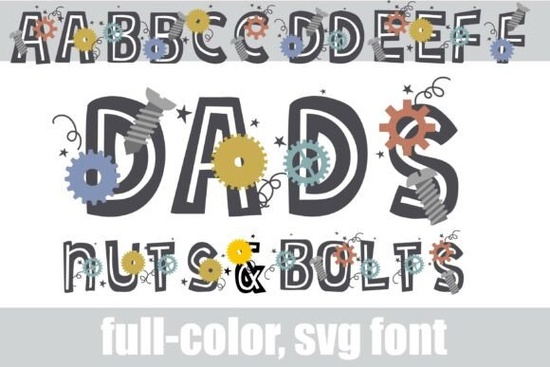
Looking for a display typeface that feels like it belongs on a workbench? Dads Nuts and Bolts Font is an industrial-themed, full-color SVG font that brings workshop charm straight into your designs. It's built for anyone who wants bold, mechanical typography with personality think threaded screws, interlocking cogs, and rustic gears woven right into each letterform. If you work on print-on-demand products, craft projects, or branding for rugged, hands-on businesses, this font fills a space that most standard typefaces simply ignore.
What Makes This Industrial Font Stand Out?
Most "industrial" fonts stop at a thick, blocky shape and call it a day. This one goes further. Each character has a medium-weight, double-lined body decorated with hand-drawn workshop hardware details. You'll notice metallic gray threaded screws, layered cogs, and gears colored in soft blue, amber gold, and warm terracotta. Because it's an SVG font, all those colors and textures are baked into the glyphs themselves no extra clipping masks or layered effects needed on your end.
Who Is This Font Actually For?
This isn't a font you'd use for body copy or legal disclaimers. It's a display typeface, meaning it shines in short, high-impact text. Here are some of the people and projects it works best for:
- Print-on-demand sellers designing Father's Day merchandise, workshop-themed T-shirts, or garage wall art
- Small business owners running independent tool shops, auto repair garages, or hardware stores who need eye-catching labels and signage
- Craft brewery packaging that leans into a handcrafted, industrial aesthetic
- Social media managers creating bold titles and quote graphics with a rugged look
- Crafters and hobbyists making gift wrapping, greeting cards, or scrapbook elements for the handy dad in their life
If your audience connects with workshop culture, vintage garage vibes, or the "built-not-bought" mindset, this typeface speaks that language visually.
How Does It Compare to Other Colorful SVG Fonts?
The colorful SVG font space has grown quite a bit in recent years. You'll find everything from watercolor brush fonts to neon-glow display type. What sets this particular design apart is its nostalgic warmth. The terracotta and amber gold tones feel handmade rather than digitally slick. It bridges the gap between a memory of weekend garage projects and clean, modern design grids something few typefaces attempt.
That emotional texture matters in branding. A tool shop logo using this font immediately tells customers it's a place with character, not a generic big-box store. A Father's Day card printed with these letterforms carries a sense of care and thought.
What Can You Pair It With?
Since the font is heavily detailed and colorful on its own, pairing it with simpler typefaces works best. Consider these combinations:
- A clean sans-serif for body text underneath headings set in the SVG font
- A monospaced typeface to echo the mechanical, technical vibe without competing visually
- A simple handwritten script if you want to soften the industrial edge for gift-related products
Keep supporting text neutral. Let the workshop hardware details in the letterforms do the talking.